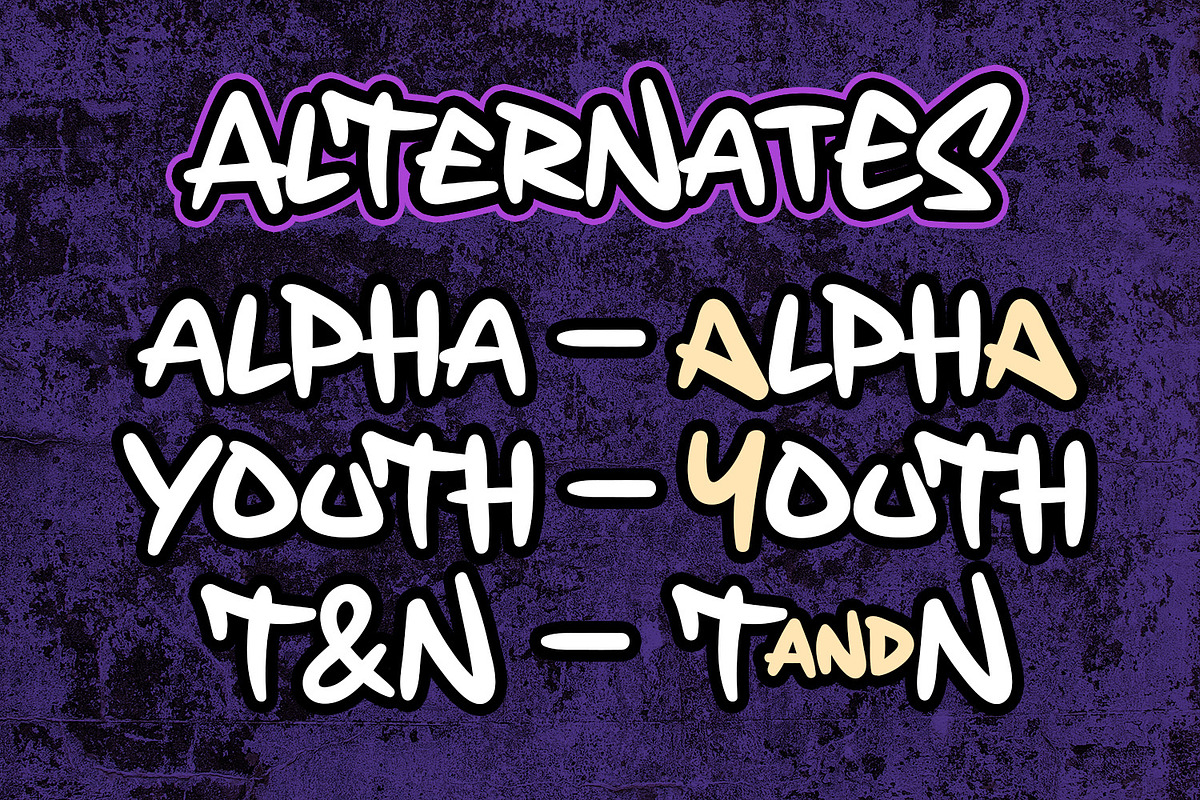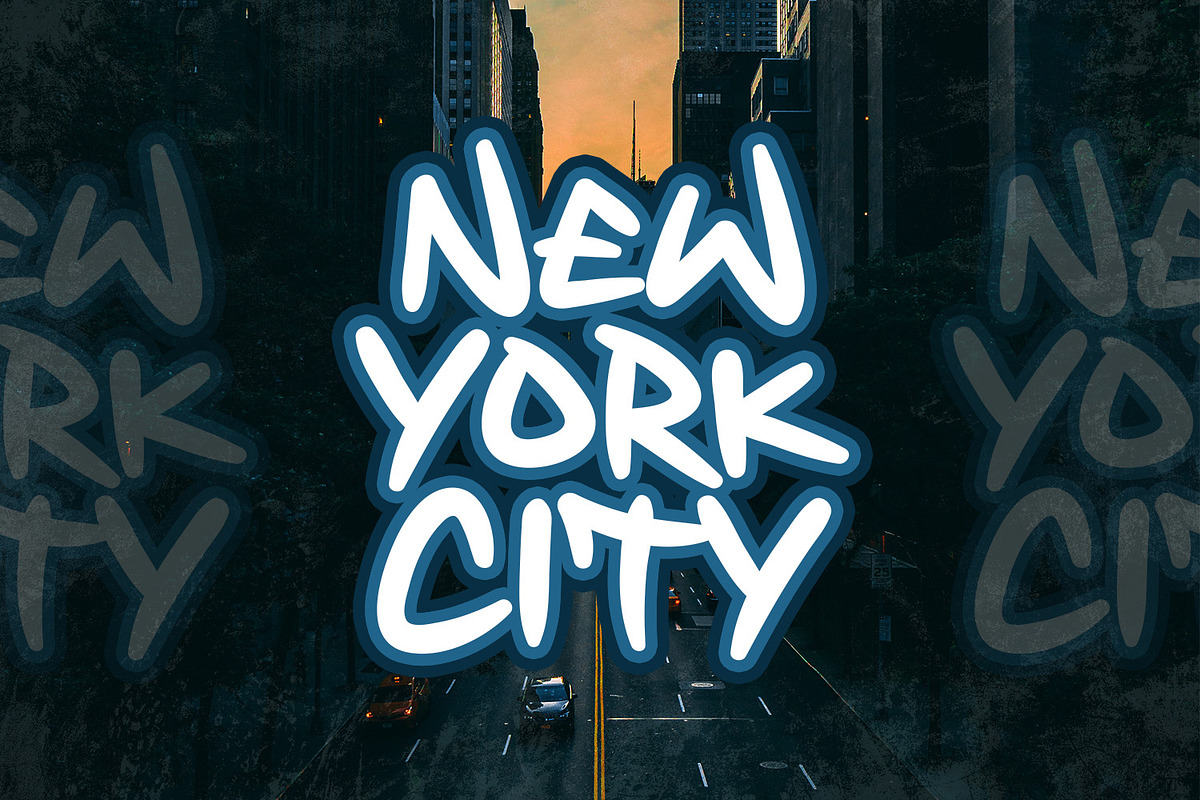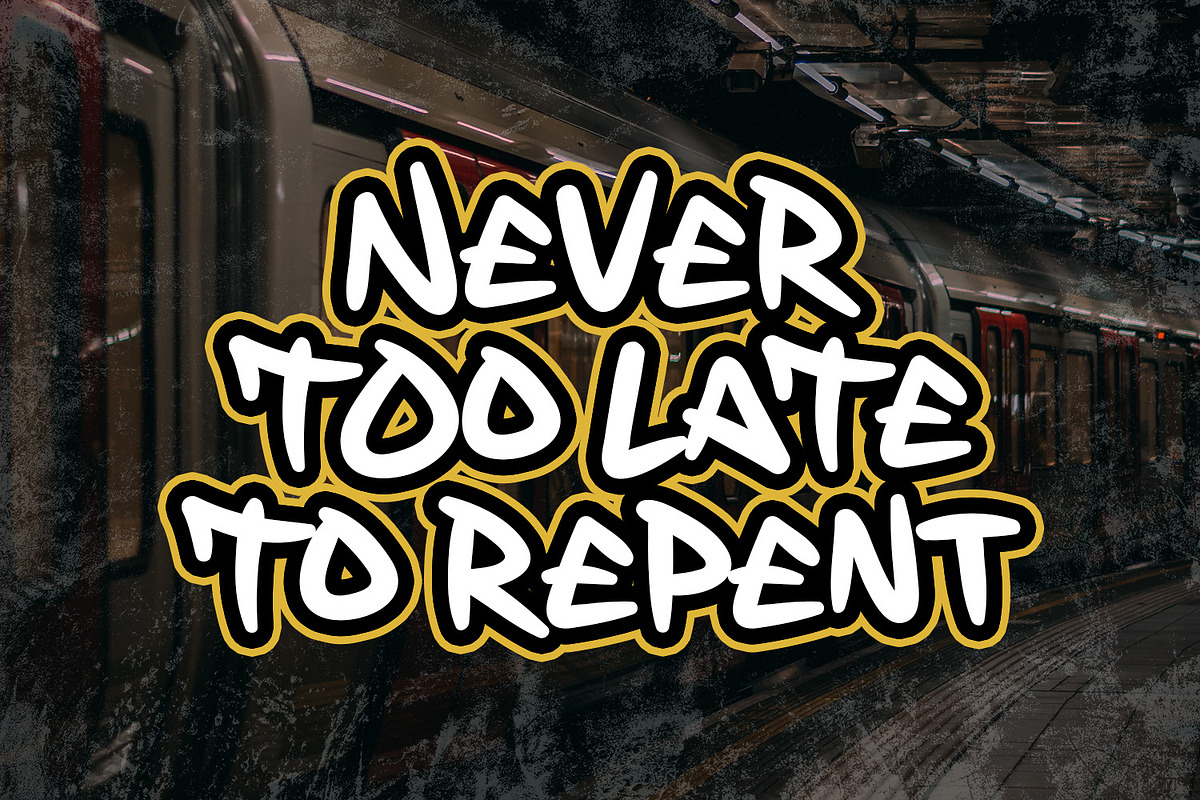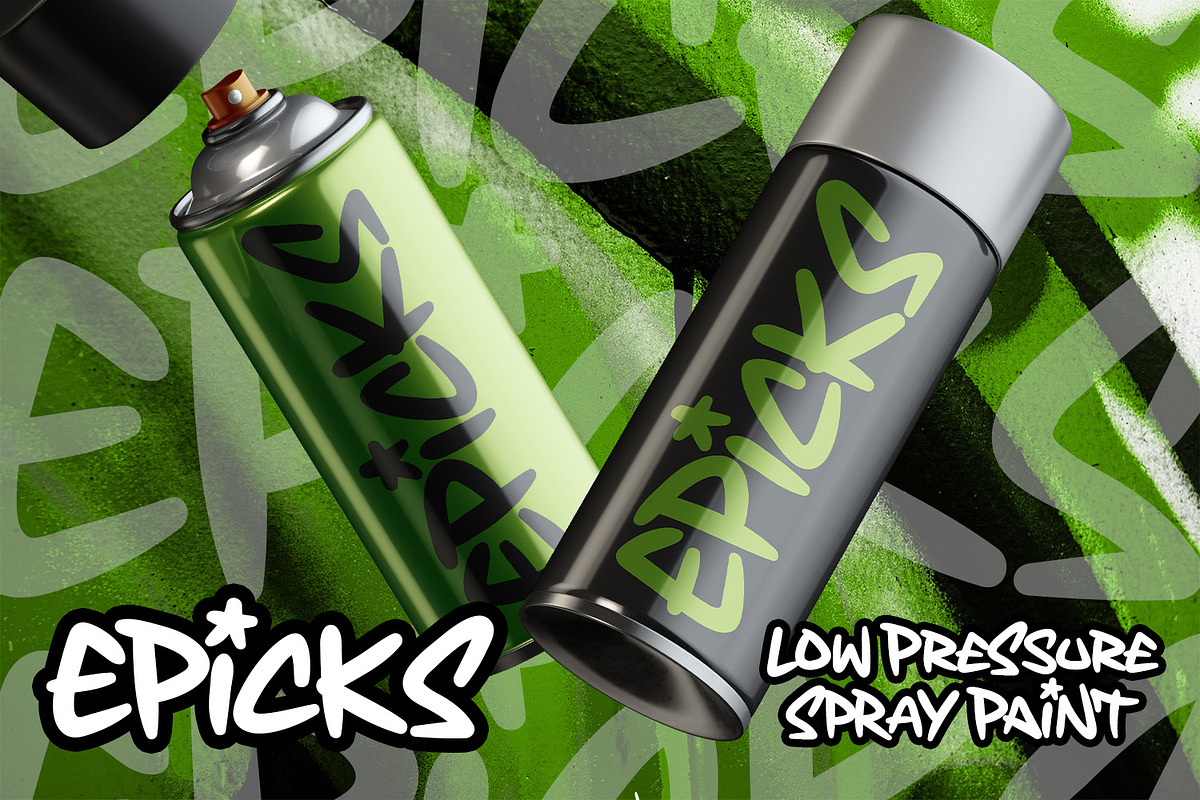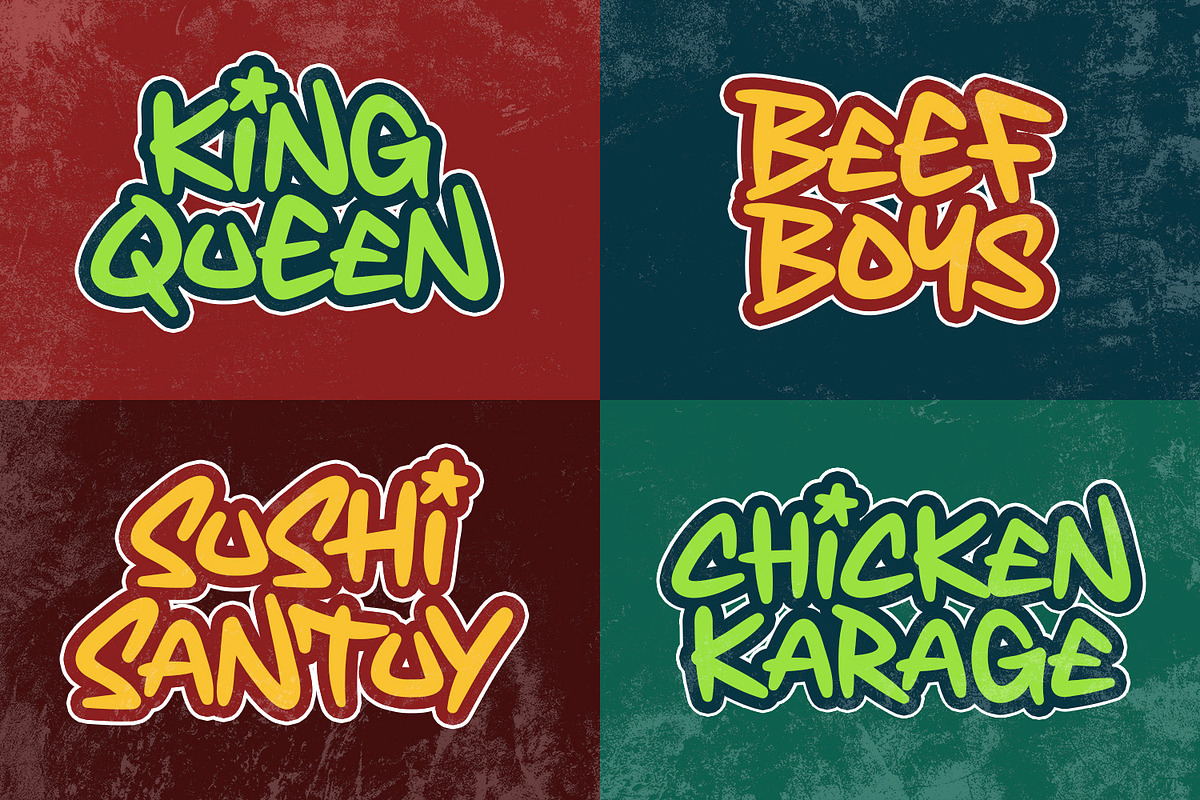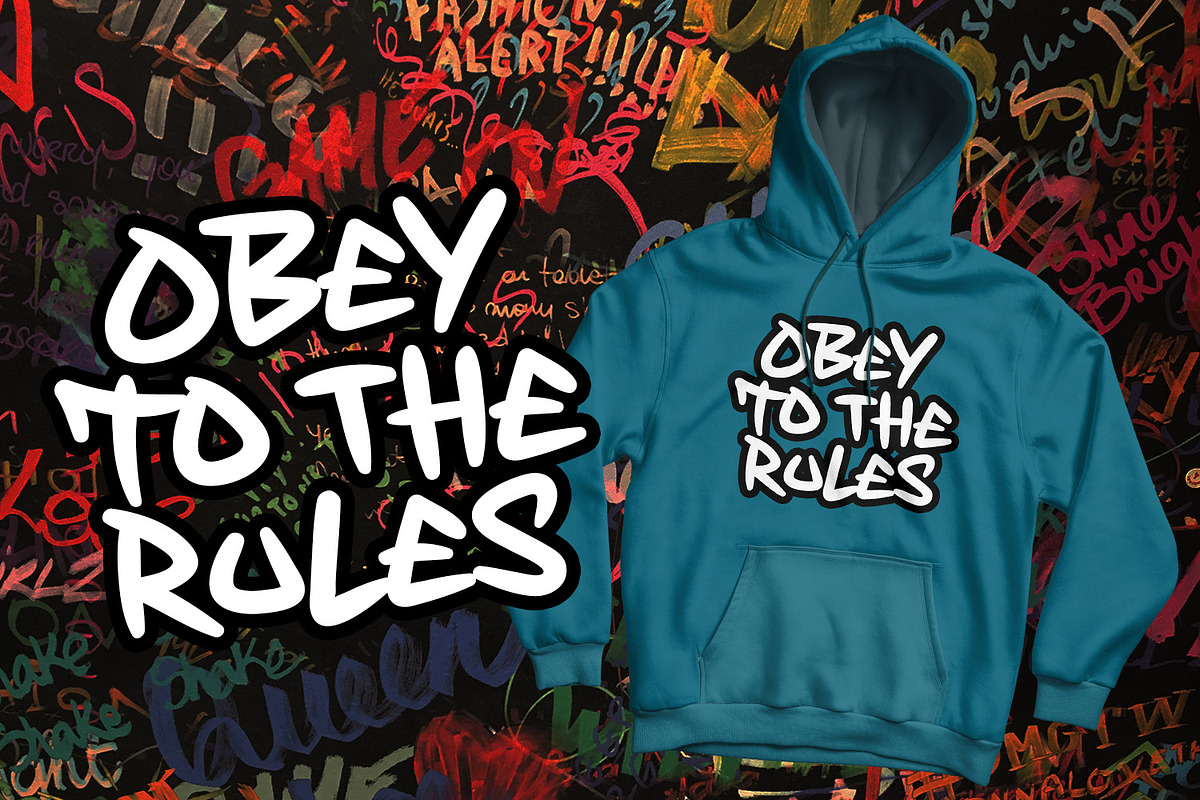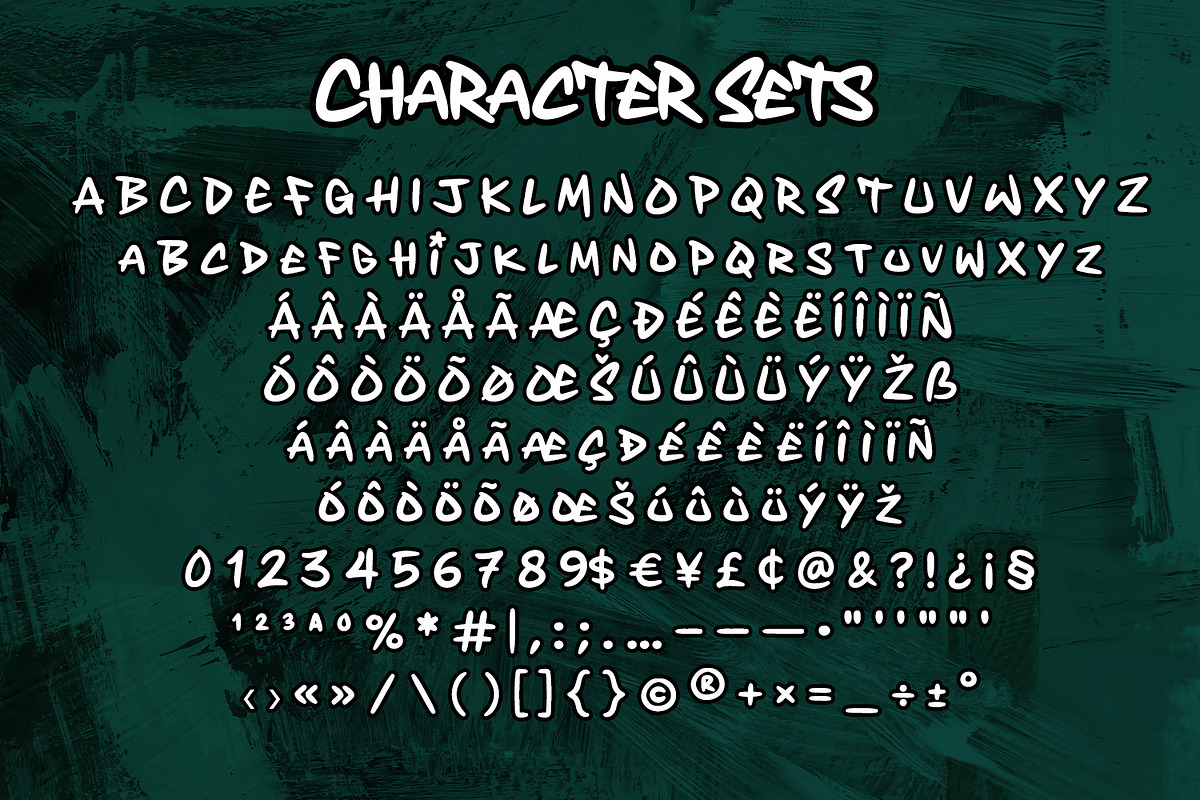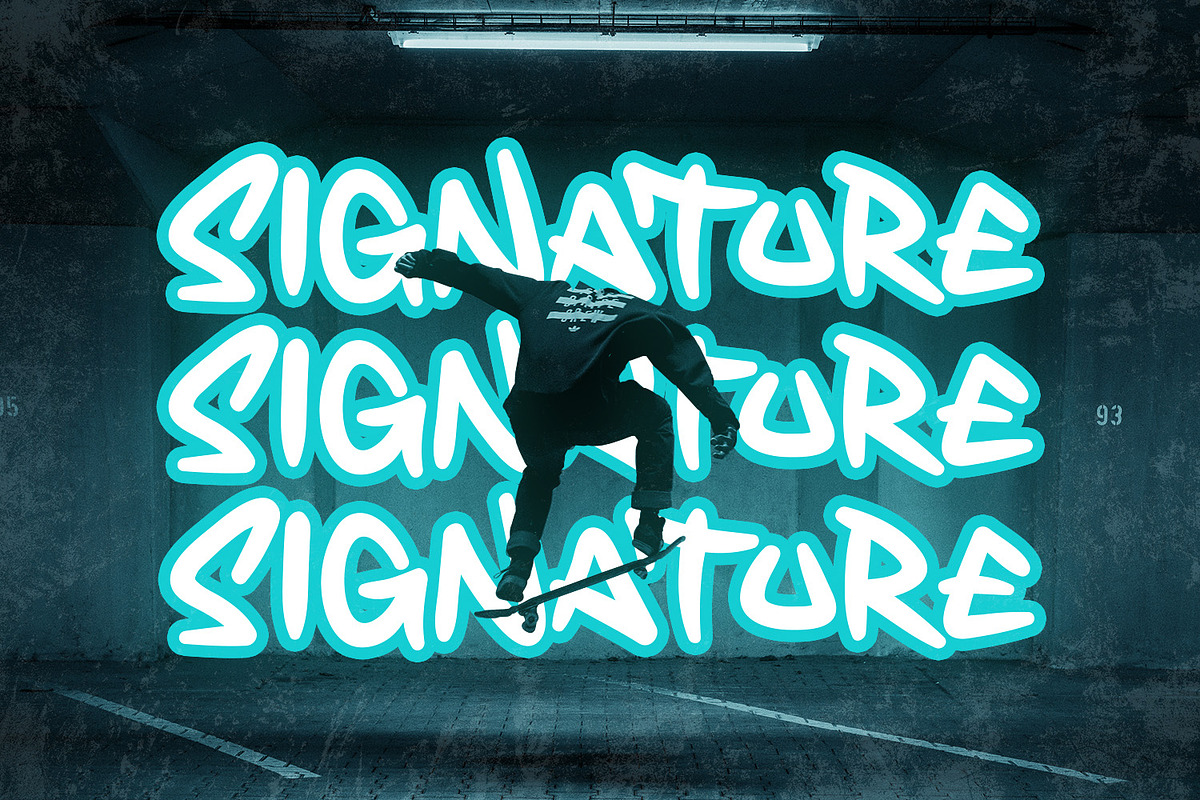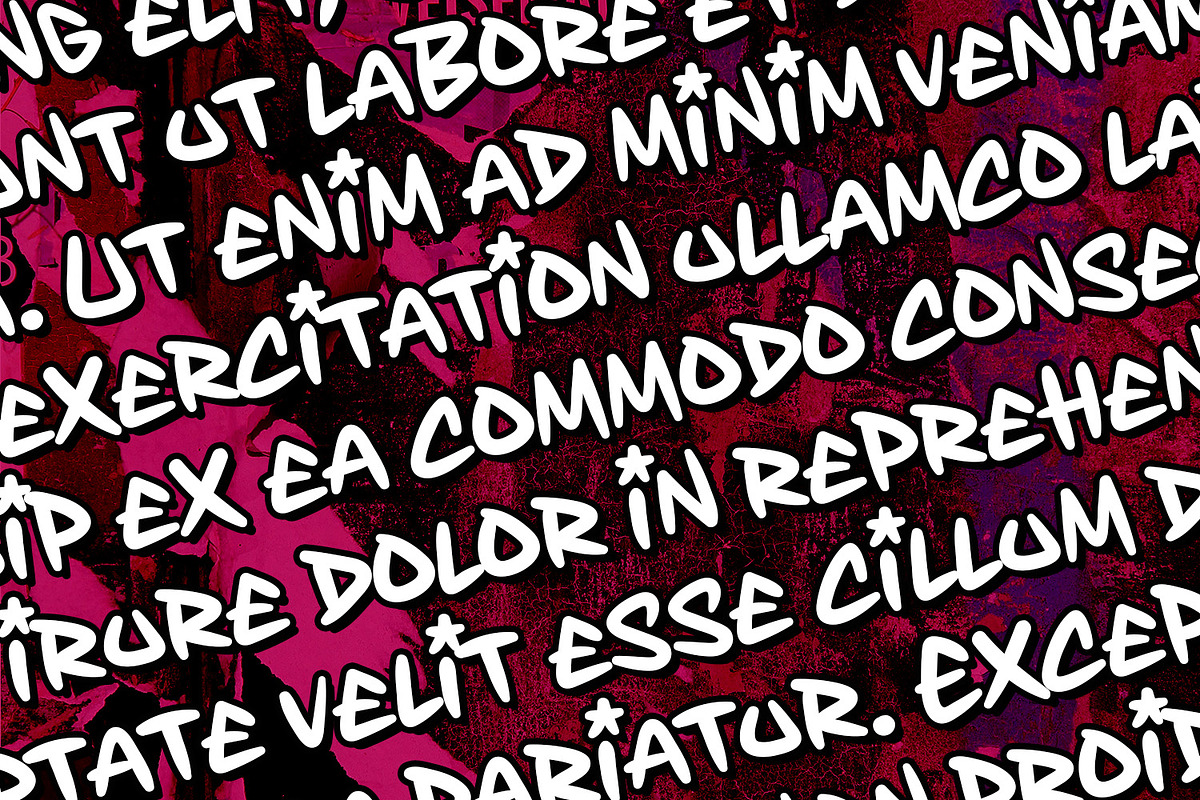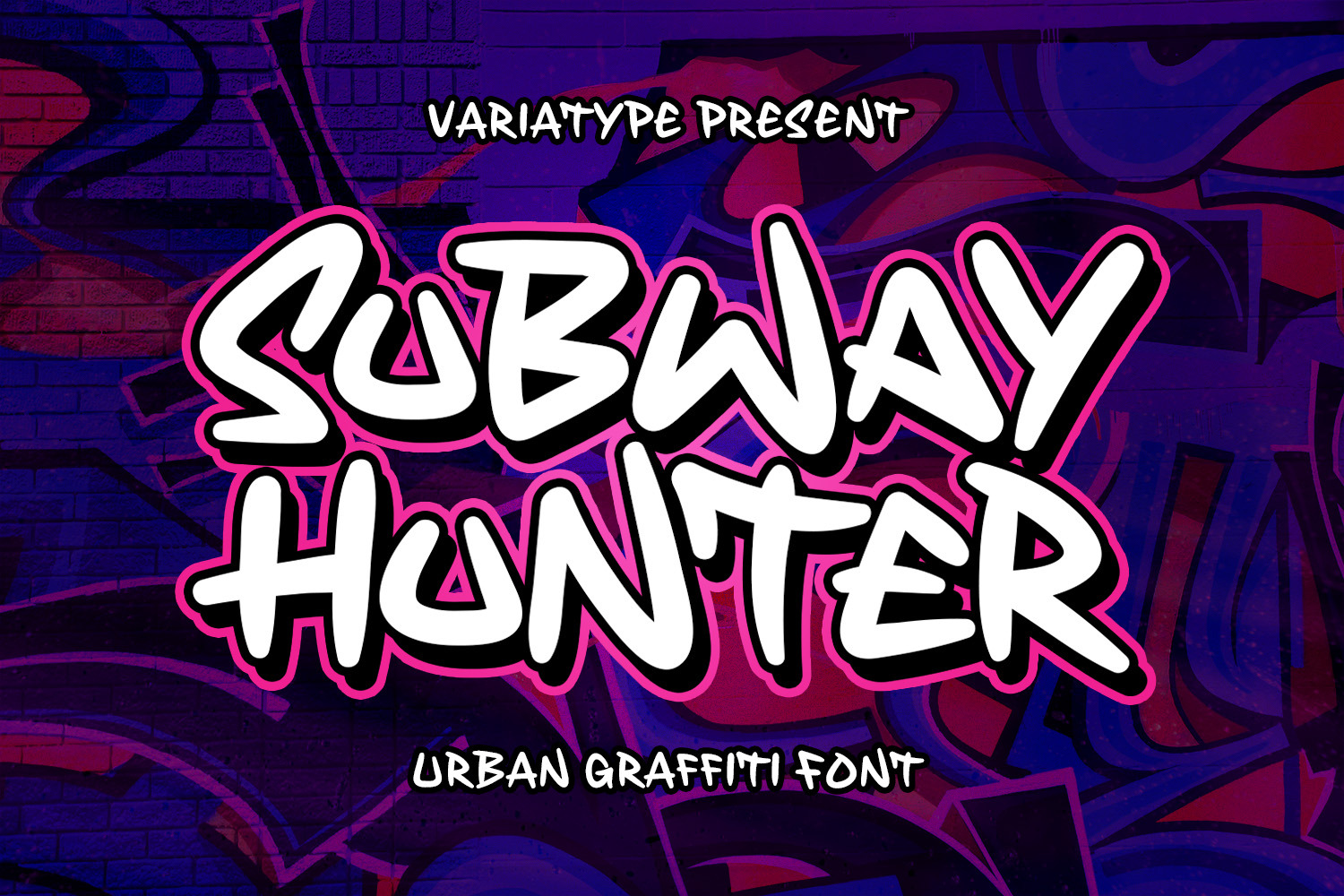
Subway Hunter - Urban Graffiti Font
Subway Hunter is a super authentic graffiti font inspired by graffiti tagging style, perfectly good to use for headline use, printed on t-shirts, hoodies, packaging, poster, advertisement, branding, and much more. Mix and match your design project with an urban or street-style theme.
FONT FEATURES
Additional Accents
66 Languages
Kerning